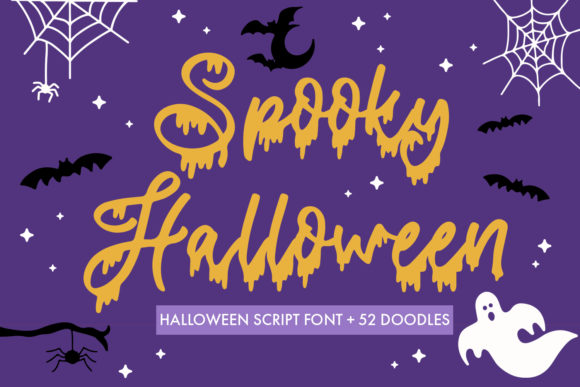
Spooky Halloween Title Font for Seasonal Campaigns
Using Spooky Halloween Title Fonts for Social Media Launch Graphics
When I was finalizing the creative assets for our annual October product launch last week, I hit a familiar wall: the visuals felt polished but lacked seasonal personality. This is exactly when integrating Spooky Halloween Title into my workflow changed the entire direction of the campaign. As a marketing specialist managing multiple channels, I needed a typeface that could carry the weight of a promotional message without looking like a generic clip-art overlay. Spooky Halloween is a fun handwritten font that immediately solved this balance issue by adding texture and warmth to our digital ads. Instead of relying on standard bold sans serifs that scream "corporate sale," this script handwritten style introduced a playful narrative element that stopped the scroll.
In practical terms, using this font for Instagram carousel covers and Facebook ad headers allowed us to maintain brand recognition while signaling a seasonal event. The unique playfulness of the letterforms acted as a visual hook, making the content feel bespoke rather than templated. For marketers, this distinction is vital; audiences are increasingly blind to stock aesthetics. By utilizing a display font with inherent character, we created a cohesive visual language across ten different post variations in under an hour. The font’s organic flow softened the hard sell of our promotional copy, making the campaign feel more like an invitation to celebrate and less like a transactional demand.
Spooky Halloween Title Script Handwritten Style for YouTube Thumbnails
Designing high-CTR thumbnails requires typography that remains legible at 15% scale on mobile devices, which is why testing Spooky Halloween Title against our standard headline fonts was a critical step in our video strategy. When creating content for a seasonal series, clarity cannot be sacrificed for style, yet standard block letters often fail to convey the specific mood of Halloween content. This font bridges that gap effectively. Its thick strokes and distinct character shapes hold up remarkably well against busy video backgrounds, ensuring the title is readable even in dark mode or small preview windows. Unlike thinner decorative fonts that disappear on screen, this typeface commands attention without requiring excessive drop shadows or outlines that can clutter the composition.
From a production standpoint, consistency across a video series builds audience trust and algorithmic favor. We used this font as the primary anchor text for five consecutive tutorial videos, pairing it with high-contrast background colors to maximize visibility. The result was a unified shelf appearance that signaled to viewers they were watching part of a curated collection. For content creators and YouTubers, this level of branding is essential for long-term channel growth. The font works exceptionally well for short, punchy phrases like "DIY Decor" or "Costume Guide," where the handwritten aesthetic reinforces the personal, creator-led nature of the content. It transforms a simple label into a stylistic signature that viewers begin to associate with your specific niche.
Pairing Spooky Halloween Title Fonts with Clean Sans Serif Body Copy
A successful campaign design relies heavily on hierarchy, and Spooky Halloween Title performs best when anchored by a neutral supporting typeface. In my recent email marketing workflow, I paired this expressive header font with a clean, geometric sans serif for the body copy and call-to-action buttons. This contrast is non-negotiable for conversion optimization; while the script handwritten header captures emotional interest and sets the seasonal tone, the secondary font ensures the logistical details—dates, pricing, links—are instantly scannable. Attempting to use a decorative font for dense information creates friction, but using it strictly for display purposes amplifies its impact.
This pairing strategy extends beyond email to landing pages and blog graphics. When designing a promotional banner for our online shop, I used the font for the main value proposition ("Fall Sale Starts Now") and reserved the sans serif for the discount code and terms. This clear separation guides the user’s eye naturally from the emotional hook to the rational decision point. For designers building template systems, establishing this relationship early saves hours of revision time. The font’s inherent playfulness provides enough visual interest that you don’t need additional graphic elements or illustrations to fill negative space, keeping the layout clean and focused on the message.
Brightening Crafting Projects with Spooky Halloween Title Display Typography
Beyond digital campaigns, Spooky Halloween Title serves as a powerful asset for physical product packaging and print collateral, particularly when the goal is to elevate perceived value through tactile design. The product description notes that it brings cute doodles and takes crafting projects to the next level, which translates directly to unboxing experiences and limited-edition labels. When designing tags for a seasonal candle line, the font’s irregular baseline and hand-drawn quality mimicked the artisanal nature of the product itself. This authenticity is something rigid digital fonts simply cannot replicate, and it resonates deeply with consumers seeking genuine connection in commercial products.
For small business owners and Etsy sellers, this versatility means one font license can cover both digital social posts and physical shipping inserts. I utilized the same typeface file for our Pinterest pin overlays and the actual sticker seals on our packaging, creating a seamless omnichannel brand experience. The "cute doodles" aspect mentioned in the specs isn't just decorative; it functions as a psychological cue that signals approachability and fun. In a market saturated with aggressive horror aesthetics for Halloween, choosing a font with unique playfulness allows brands to capture the family-friendly and cozy autumn demographics that are often underserved. It brightens up the visual identity without alienating customers who prefer whimsy over fright.